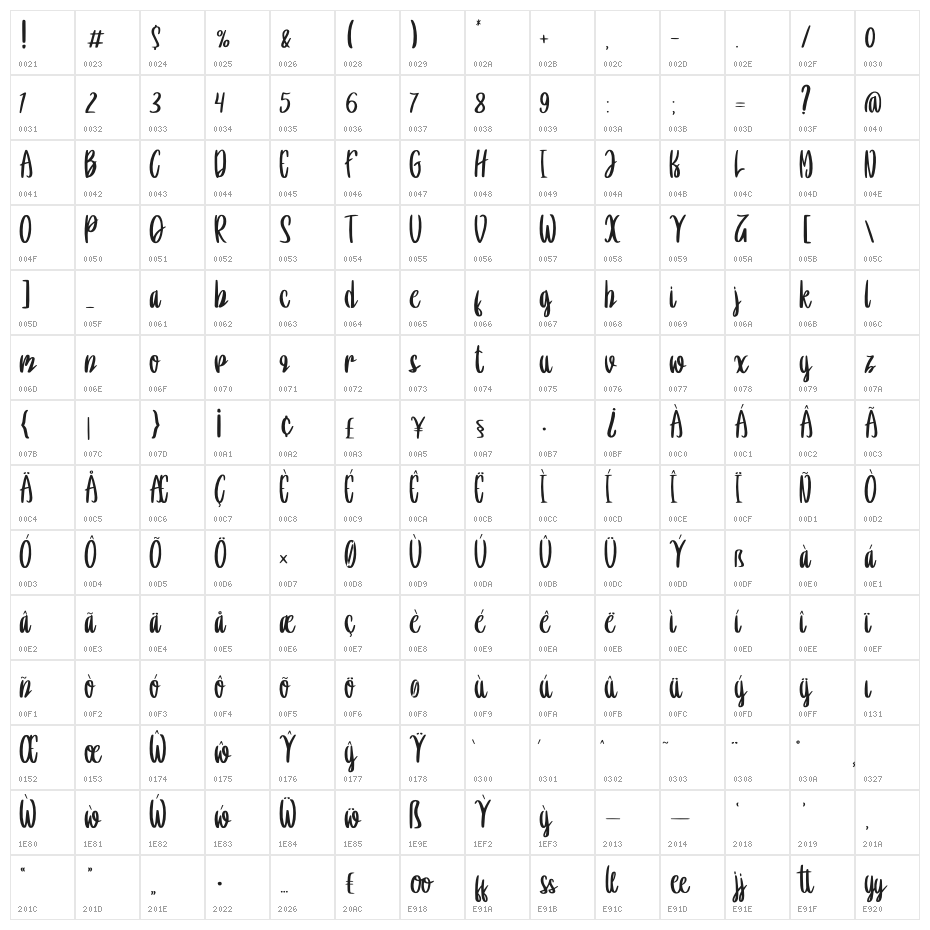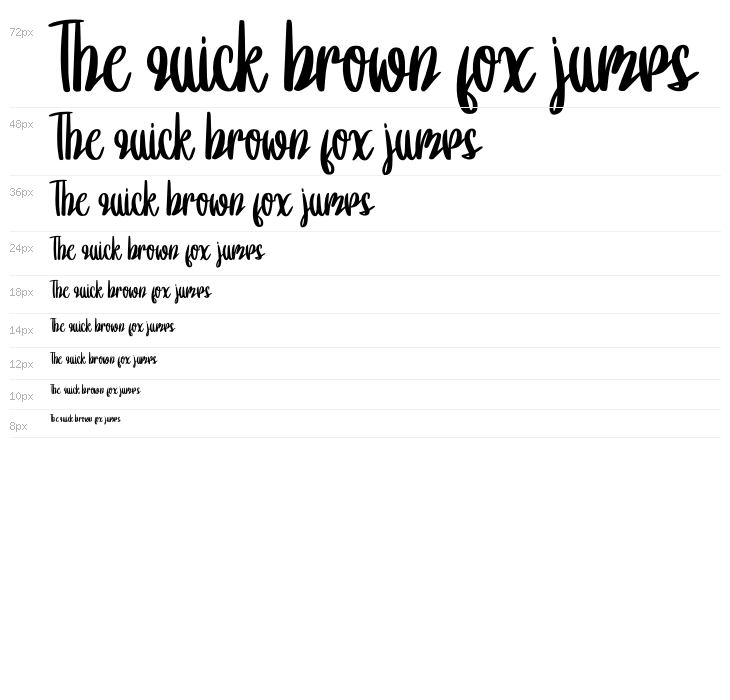
Beleriand Font
Beleriand Description
This font features a playful and energetic handwritten style, characterized by its bold and flowing letterforms. The uppercase letters are tall and slightly narrow, with a whimsical flair that adds a sense of movement and dynamism. The lowercase letters maintain this lively aesthetic, with smooth curves and varying stroke widths that give the font a natural, organic feel. The numerals are consistent with the overall style, offering a cohesive look across all characters. Special characters are included, maintaining the same playful and bold characteristics. This font is ideal for projects that require a personal touch or a creative, informal vibe.